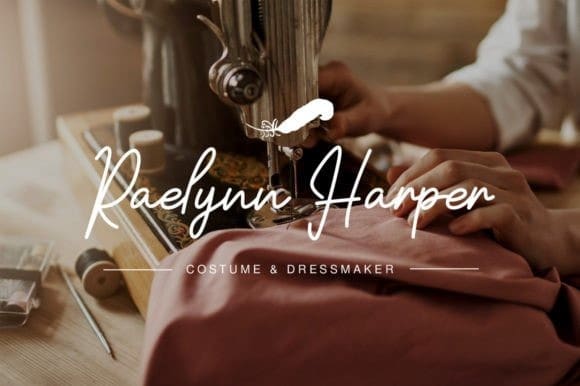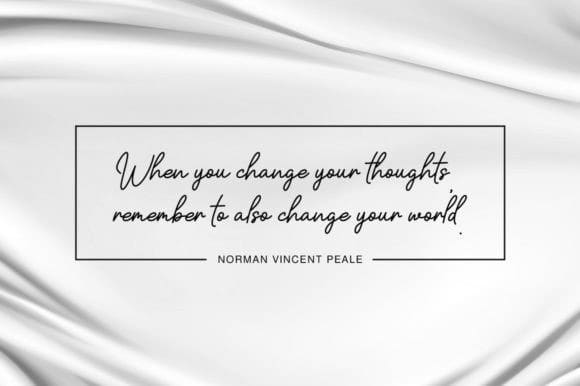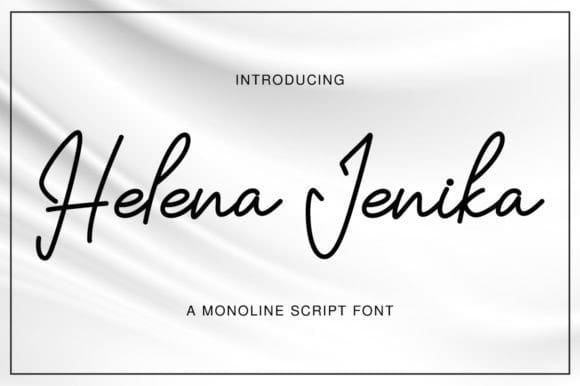
Helena Jenika Font
Helena Jenika Font is an elegant handwritten font. Dainty and joyful, this font will be ideal for writing wedding invitations, cards or any other design that may need a romantic, personalized touch!